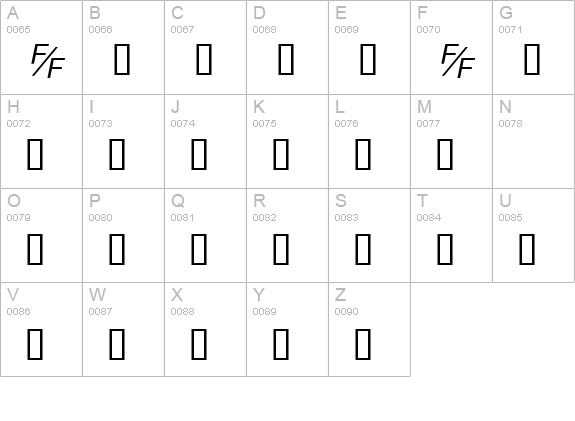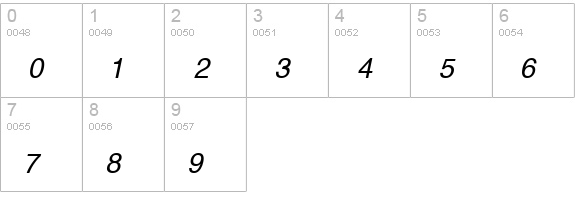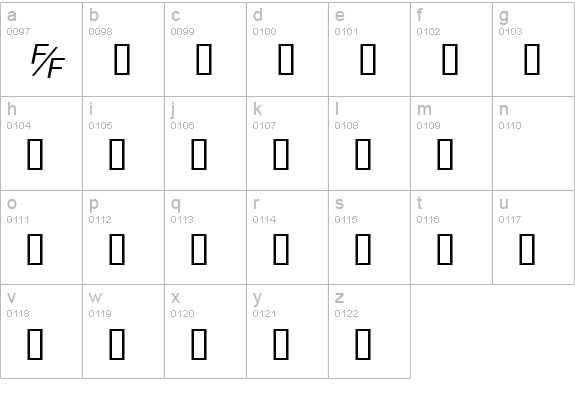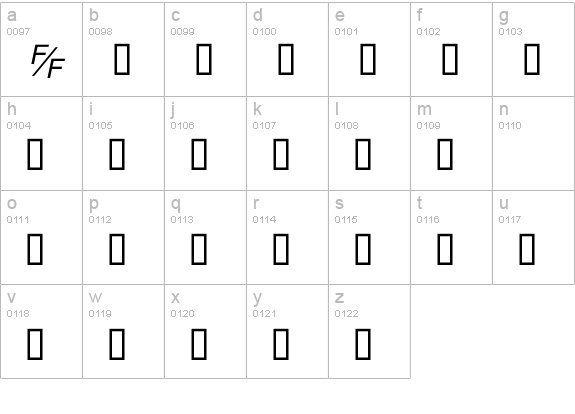
HelvFE Oblique is a distinctive, italic variant in the HelvFE typeface family \xE2\x80\x94 well suited to design and typography projects.
The HelvFE Oblique font exudes a sense of modern elegance with its sleek lines and stylish slanted design. This versatile typeface is perfect for adding a touch of sophistication to any project, whether it be for print or digital use. Its clean and crisp appearance makes it easy to read, while its oblique style adds a unique flair to your text. What sets HelvFE Oblique apart is not only its aesthetic appeal but also the fact that it is available for free. Yes, you read that right - this high-quality font can be freely downloaded at FontsMarket.com, making it accessible to all designers and creatives looking to elevate their work with a touch of class. Whether you're working on a branding project, website design, or any other creative endeavor, HelvFE Oblique is sure to make a lasting impression. Download it today and see for yourself how this font can take your designs to the next level.